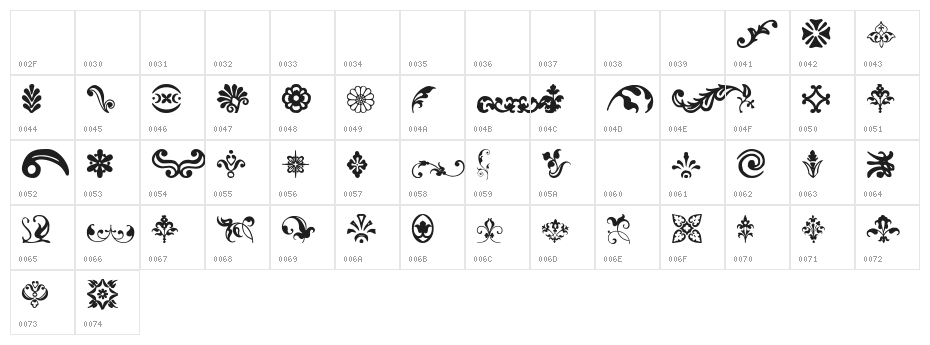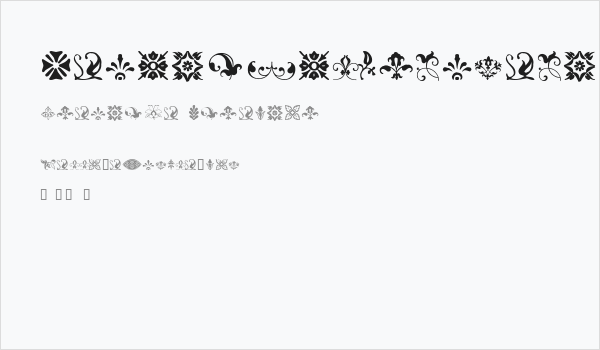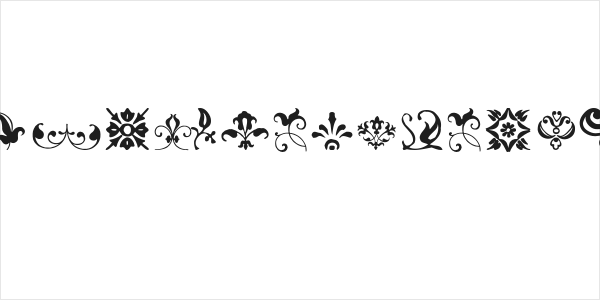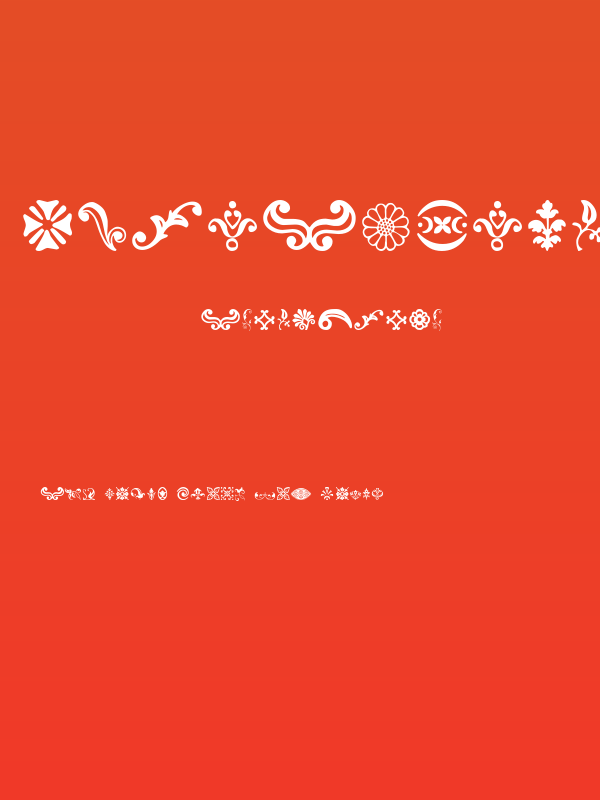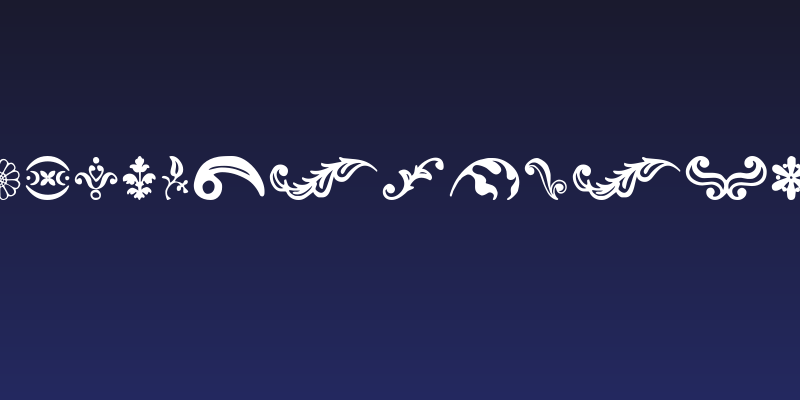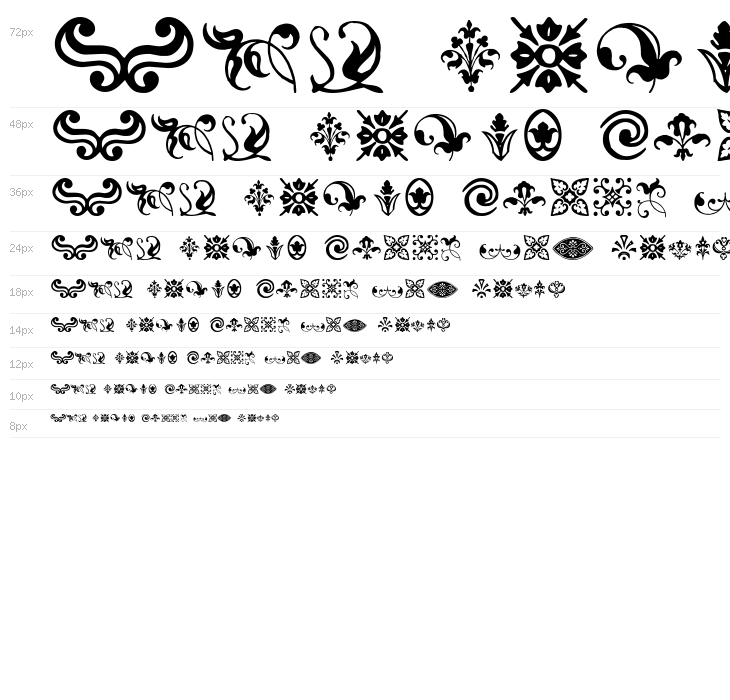
BeautifulOrnamentsThree Font
BeautifulOrnamentsThree Description
This collection features a variety of intricate and decorative ornaments, each with a unique design that showcases elegant curves, floral motifs, and symmetrical patterns. The ornaments are highly detailed, making them suitable for embellishing designs that require a touch of sophistication and artistry. The set includes a range of styles from simple flourishes to complex floral arrangements, providing versatility for different design needs. These ornaments can be used to enhance invitations, certificates, or any project that benefits from an ornamental touch. The designs are consistent in their decorative theme, offering a cohesive look when used together.
| Use Case | Logos, Decorative elements |
| Proposed Projects | Ideal for invitations, certificates, decorative borders, and artistic embellishments. |